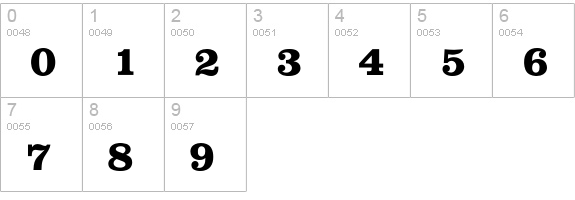
Clarendon Black is a maximum-weight, dramatic variant in the Clarendon typeface family \xE2\x80\x94 well suited to maximum-impact headlines, posters, and packaging.
Clarendon Black is a classic and bold serif font that commands attention and exudes a sense of authority. With its strong and sturdy letterforms, this typeface is perfect for making a statement in headlines, titles, and other prominent text settings. The thick strokes and distinct serifs give Clarendon Black a timeless and elegant appearance that is both impactful and easy to read. What makes Clarendon Black even more appealing is that it is available for free download at FontsMarket.com. This means that you can easily access and use this high-quality font for your personal and commercial projects without any cost. Whether you're looking to add a touch of sophistication to your designs or create a striking visual impact, Clarendon Black is a versatile and reliable choice that won't disappoint. Download it today and elevate your typography game with this exceptional font.